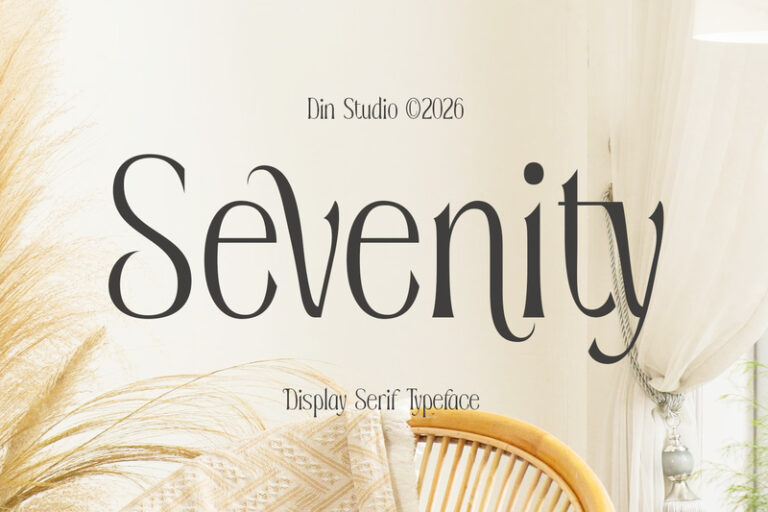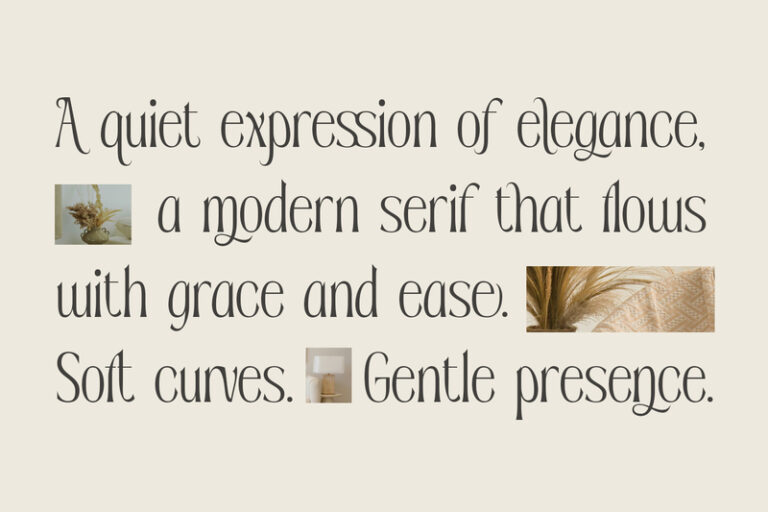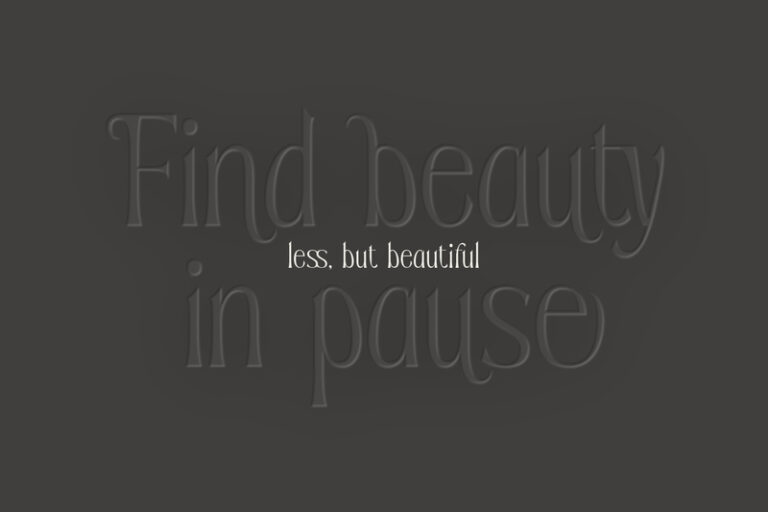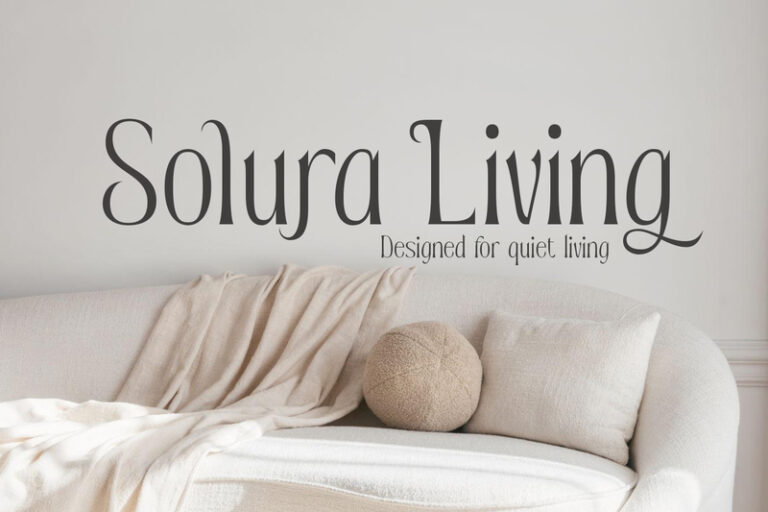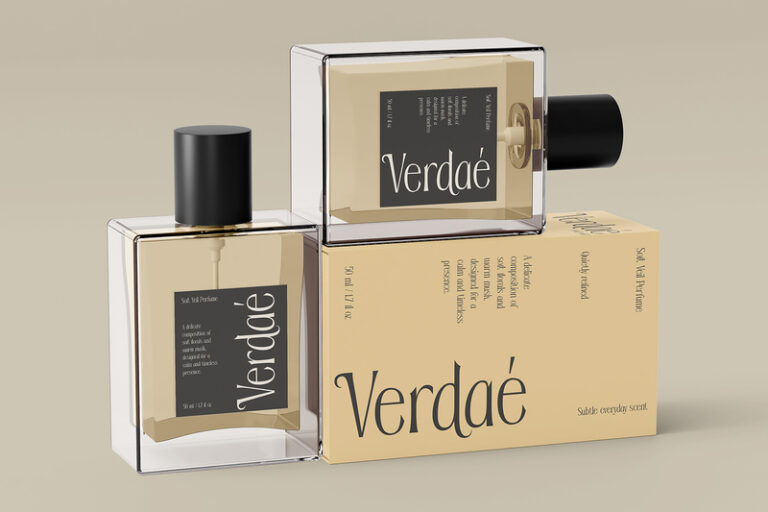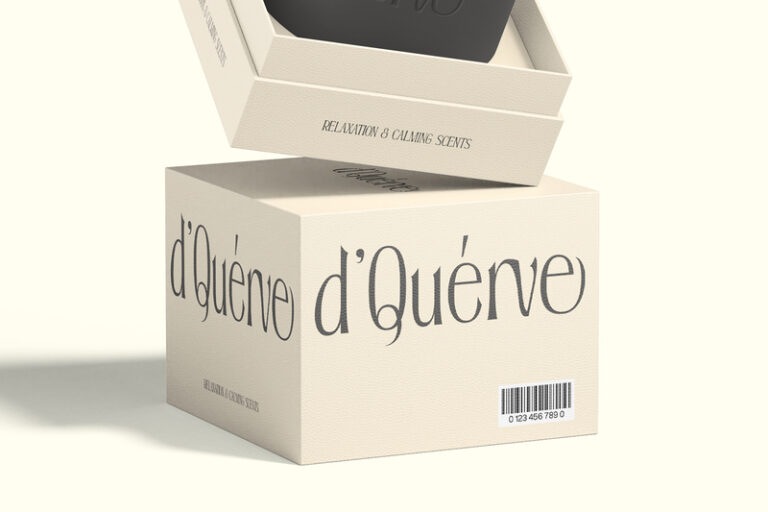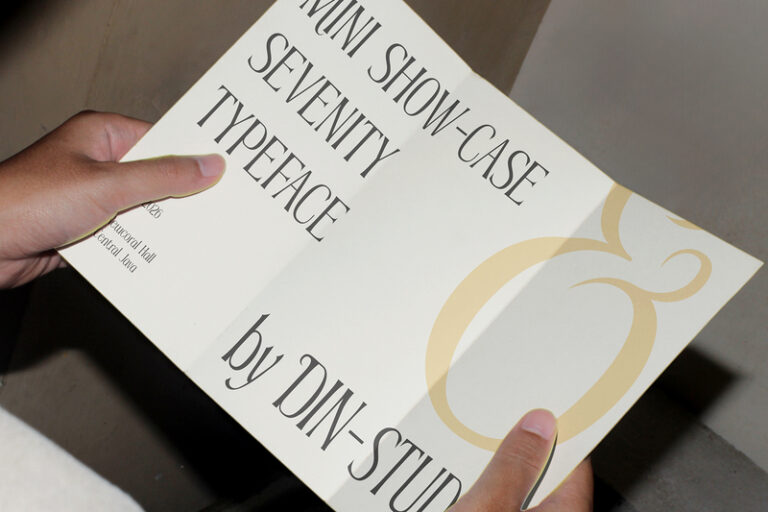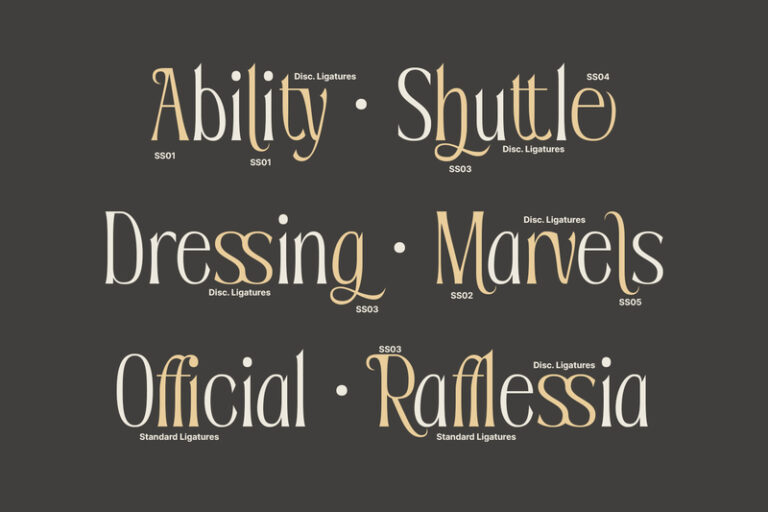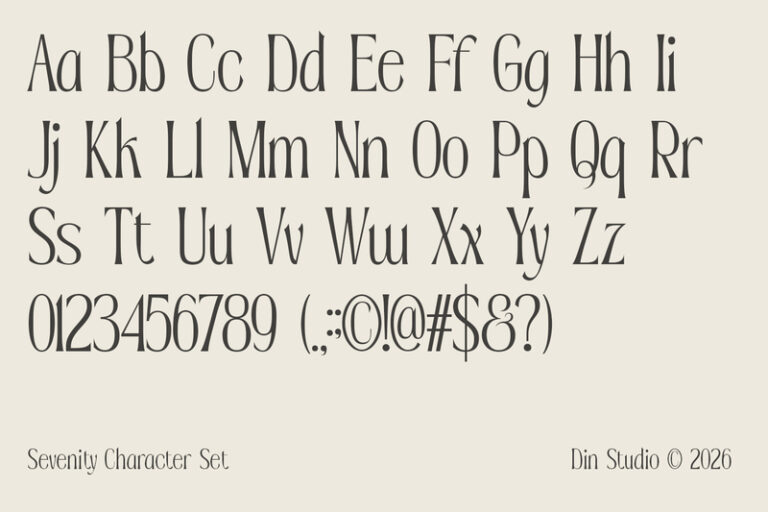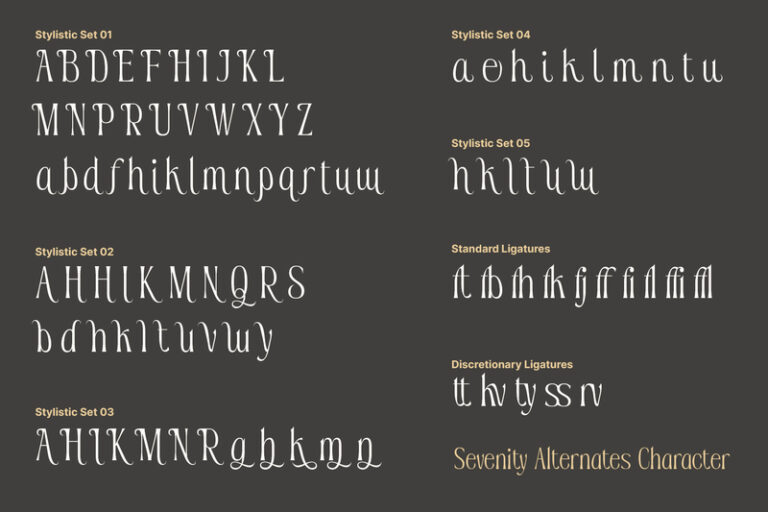
Sevenity – Display Serif Font
Sevenity
Sevenity is a stunning serif display font that defines modern elegance. Designed to capture attention with refined sophistication, this typeface blends contemporary aesthetics with timeless typographic beauty. Its sharp serifs, dramatic thick-to-thin transitions, and clean structure make Sevenity a perfect choice for designers seeking a luxurious and fashion-forward serif font. In addition, enjoy the features here.
- Ligatures
- Stylistic Sets